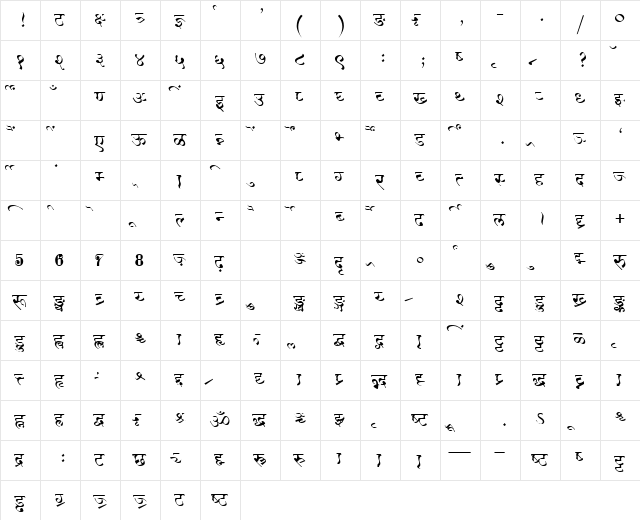
AkrutiDevIshwar Normal
Design Context for AkrutiDevIshwar Typeface
AkrutiDevIshwar is a composed and adaptable typeface that performs quietly and consistently across a wide range of design contexts.